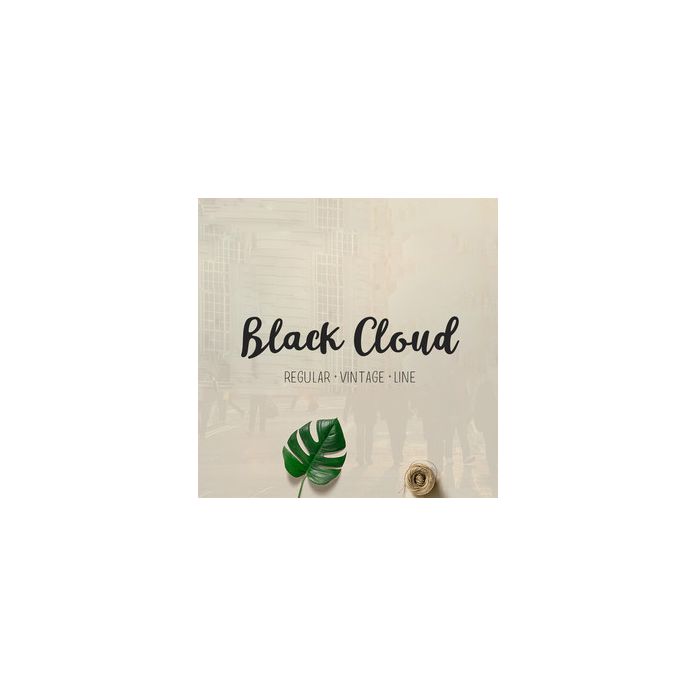
Black Cloud family 3 style comes with an amazing character. Ideal for a logo, a name tag, you also easy to access these fonts because I've given PUA unicode (font specific code), with tons of character alternatives.